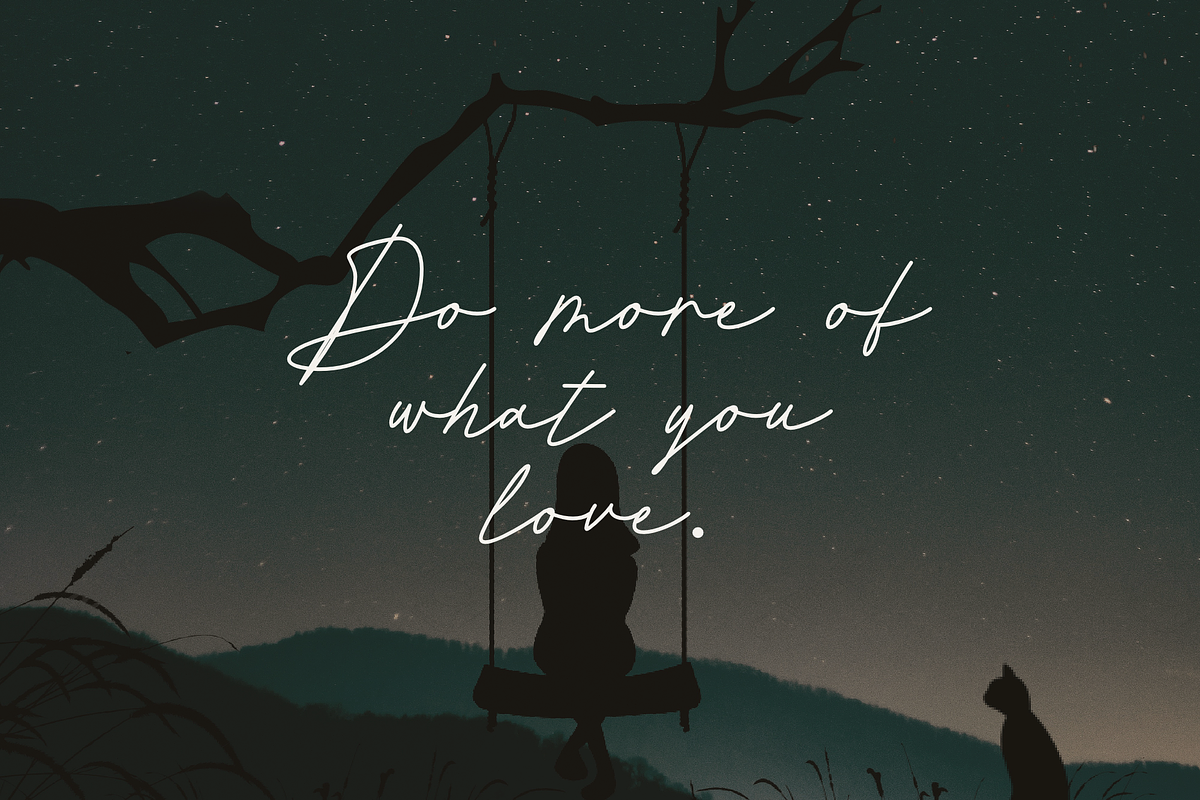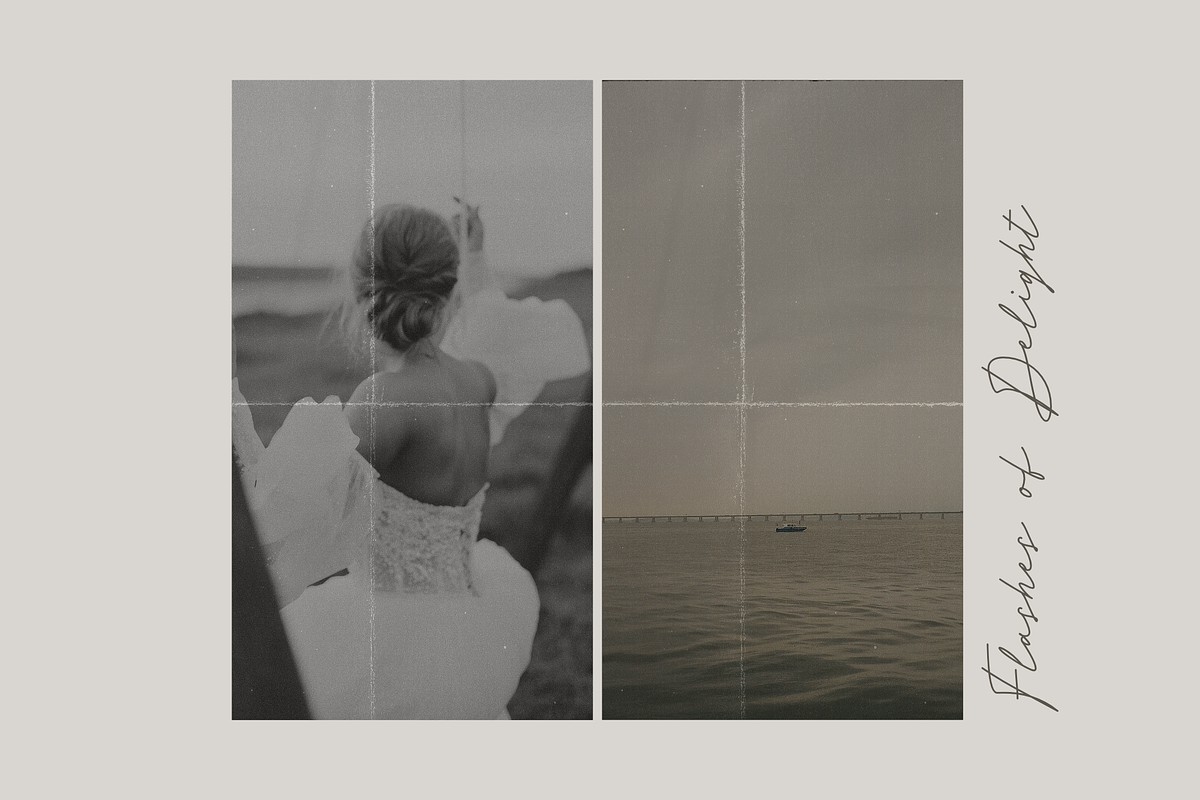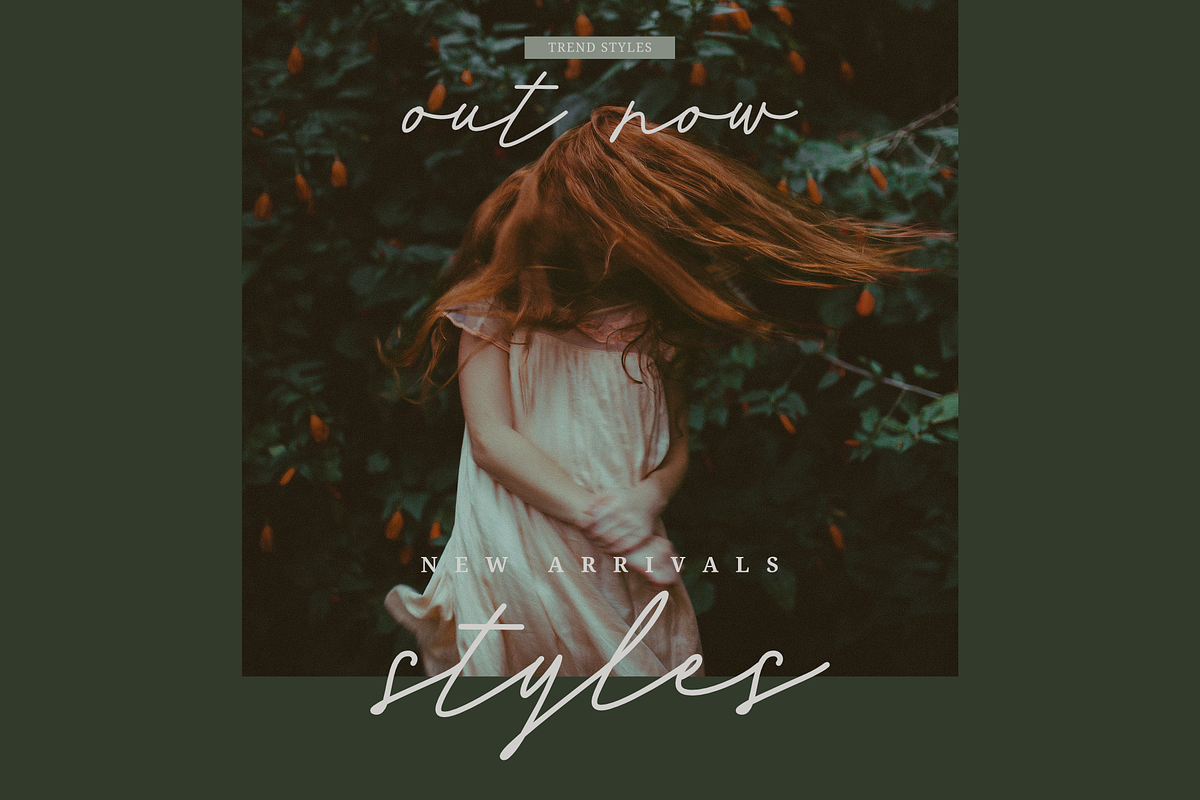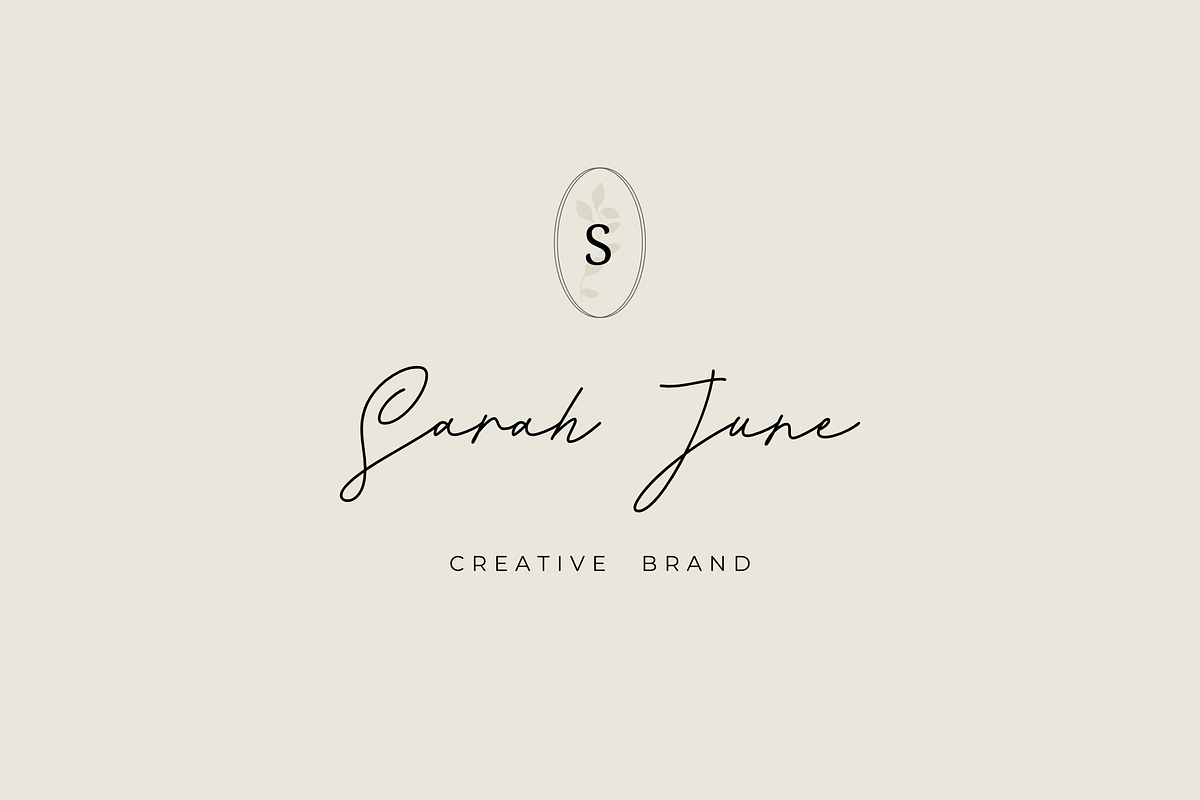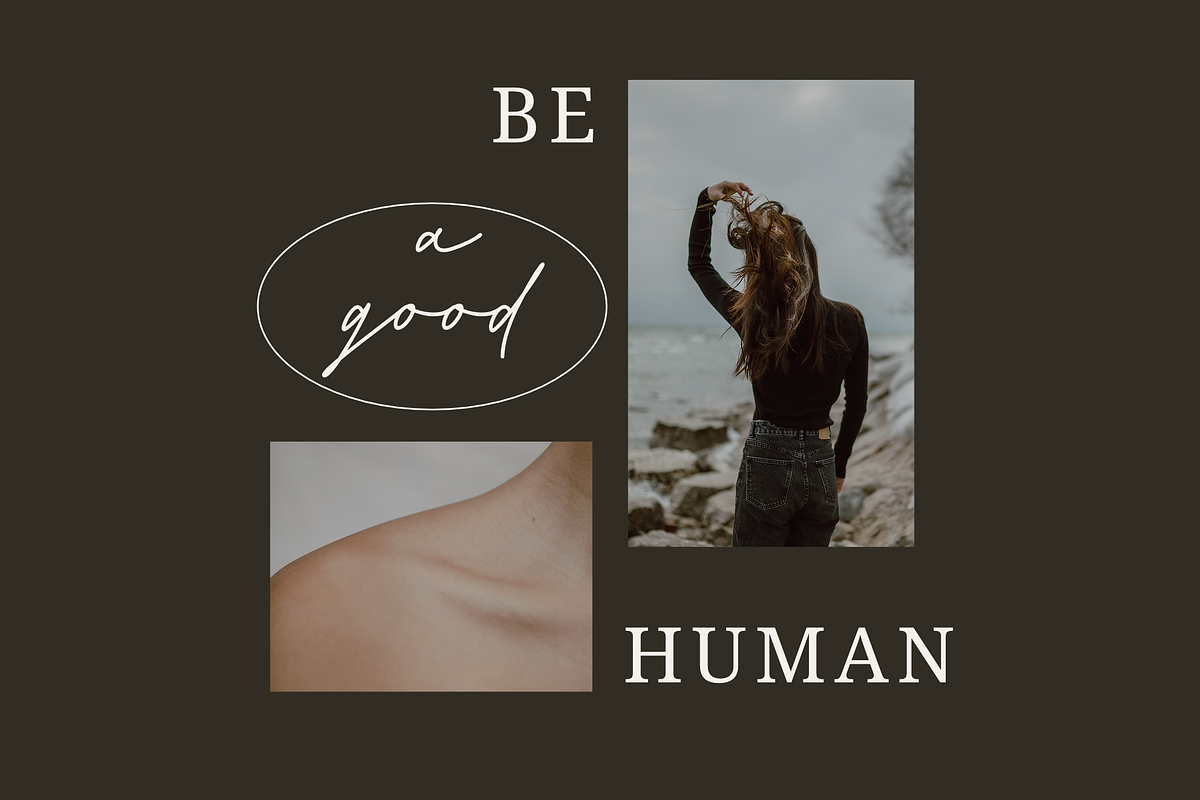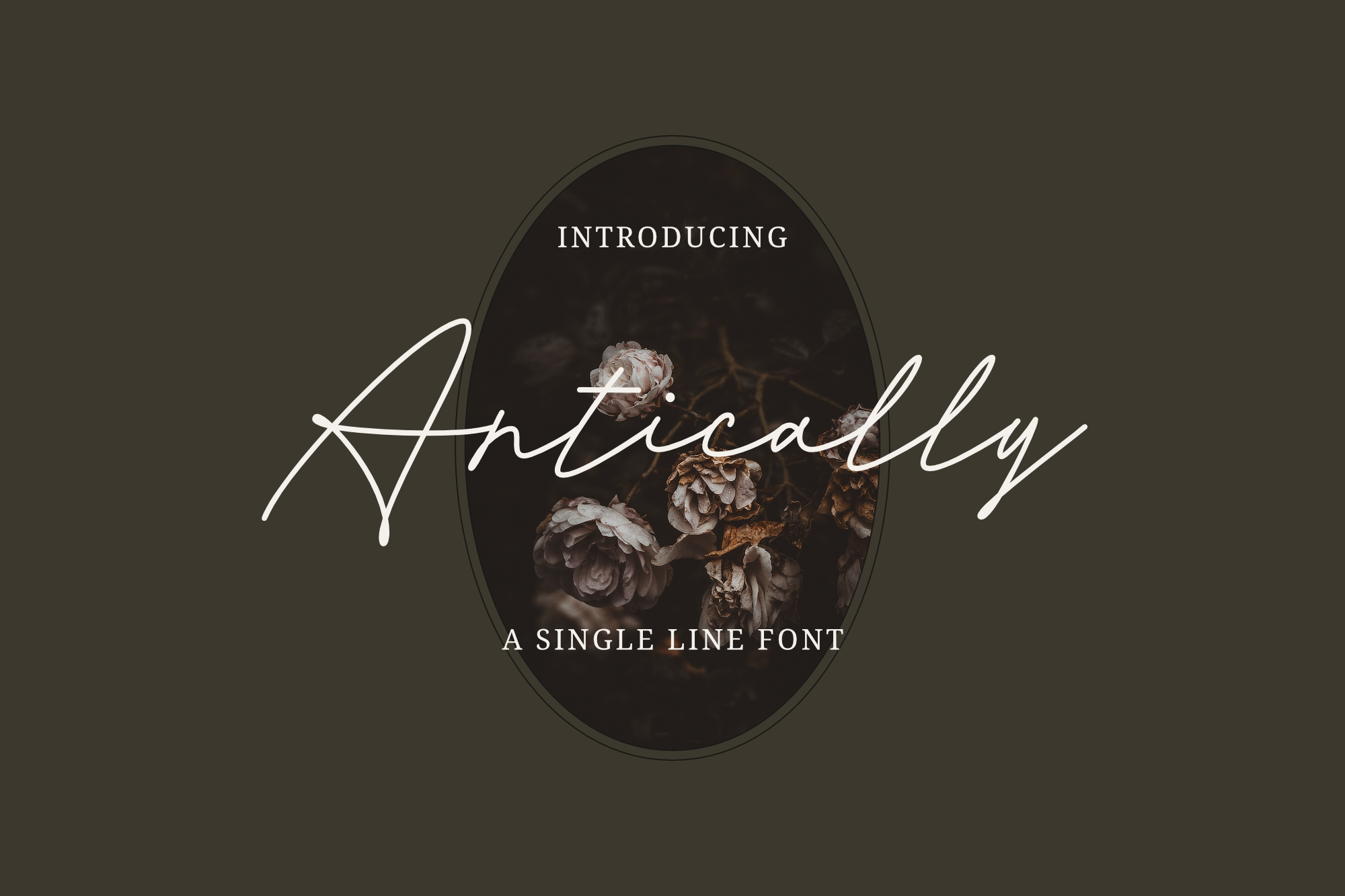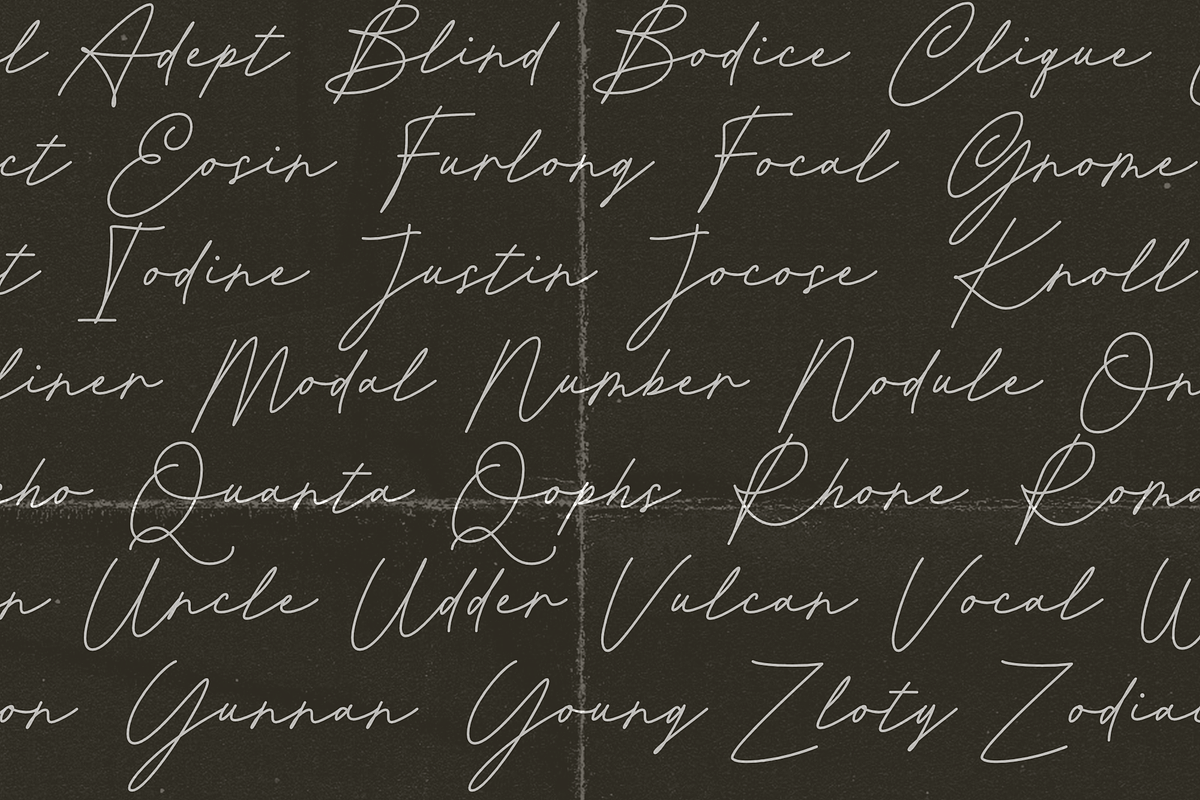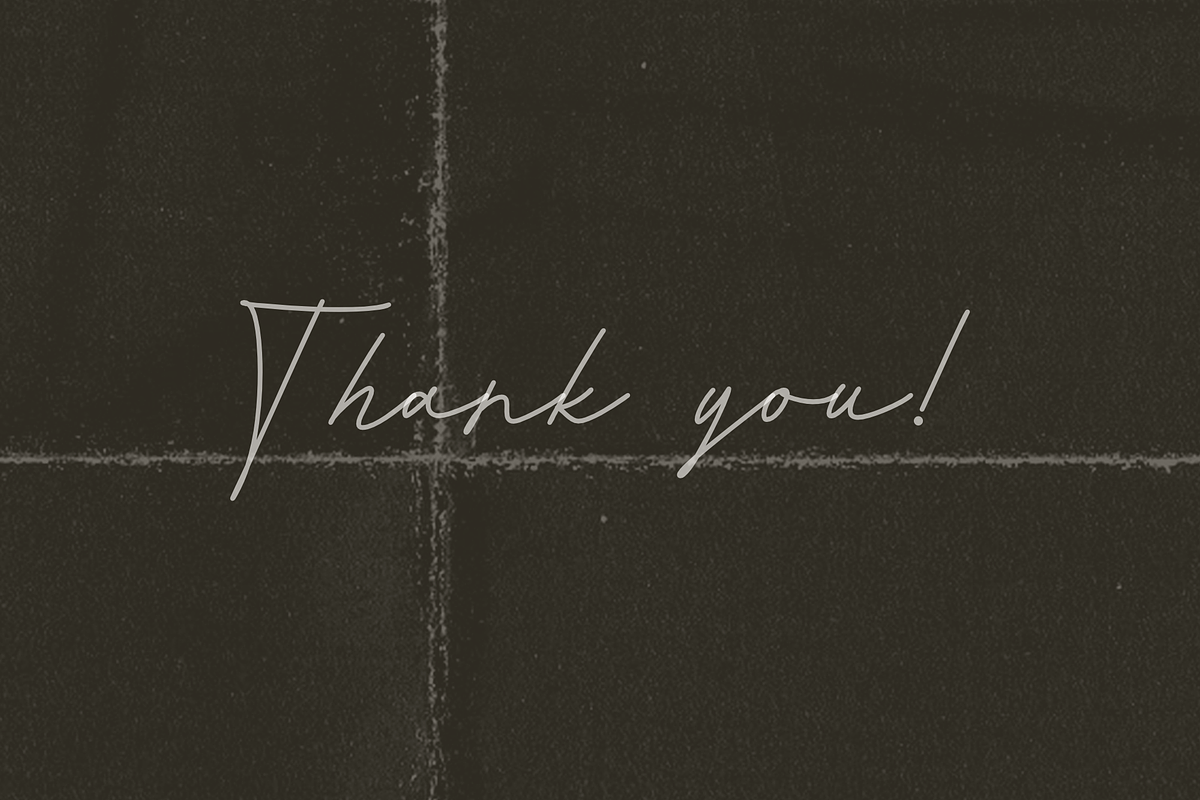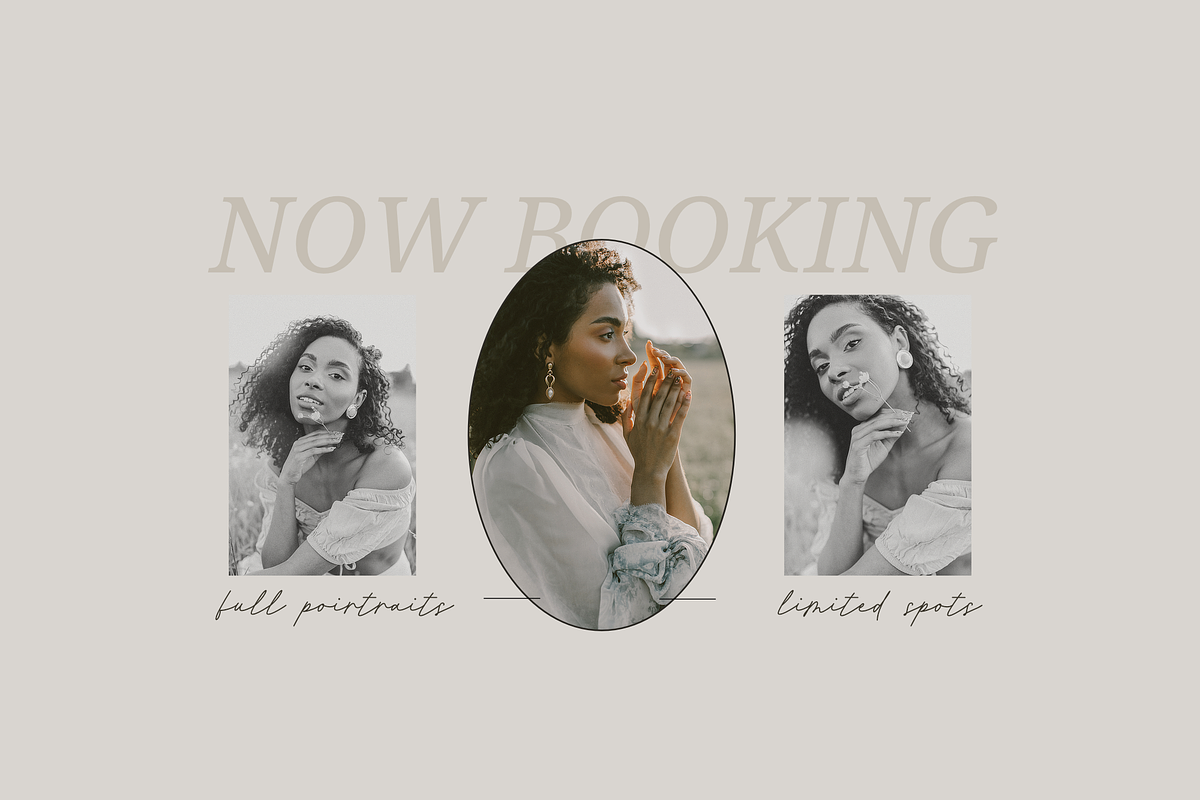
Antically - a Single Line Font
Antically is a single line font without ligature. Antically is inspired by elegant handwriting and add signature element to from wedding invitation, quotes to Instagram quotes, poster, websites, and more.